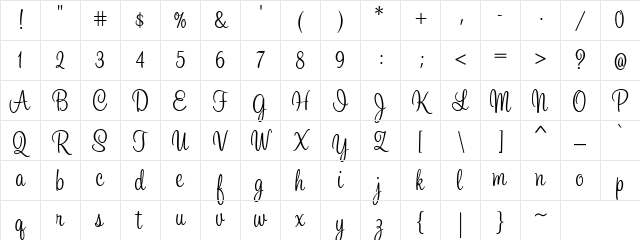
SweetheartScript Regular Free Font
SweetheartScript Regular
Foundry: Typadelic Fonts
Designer: Ronna Penner for Typadelic Fonts
Design Context for SweetheartScript
SweetheartScript flows with the natural rhythm of handwritten lettering, making it ideal for designs that call for warmth and personal expression.
Font Pairing: Combine SweetheartScript with a simple geometric sans for maximum contrast - the tension between flowing curves and clean structure is a classic typographic pairing.
Pro Tip: Use SweetheartScript for short runs of text - names, titles, or taglines. Extended body copy in script faces tires the eye quickly.